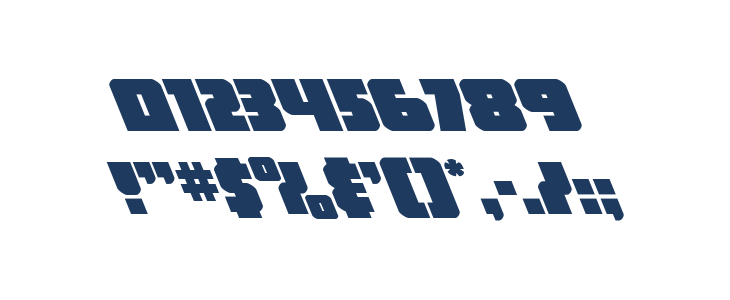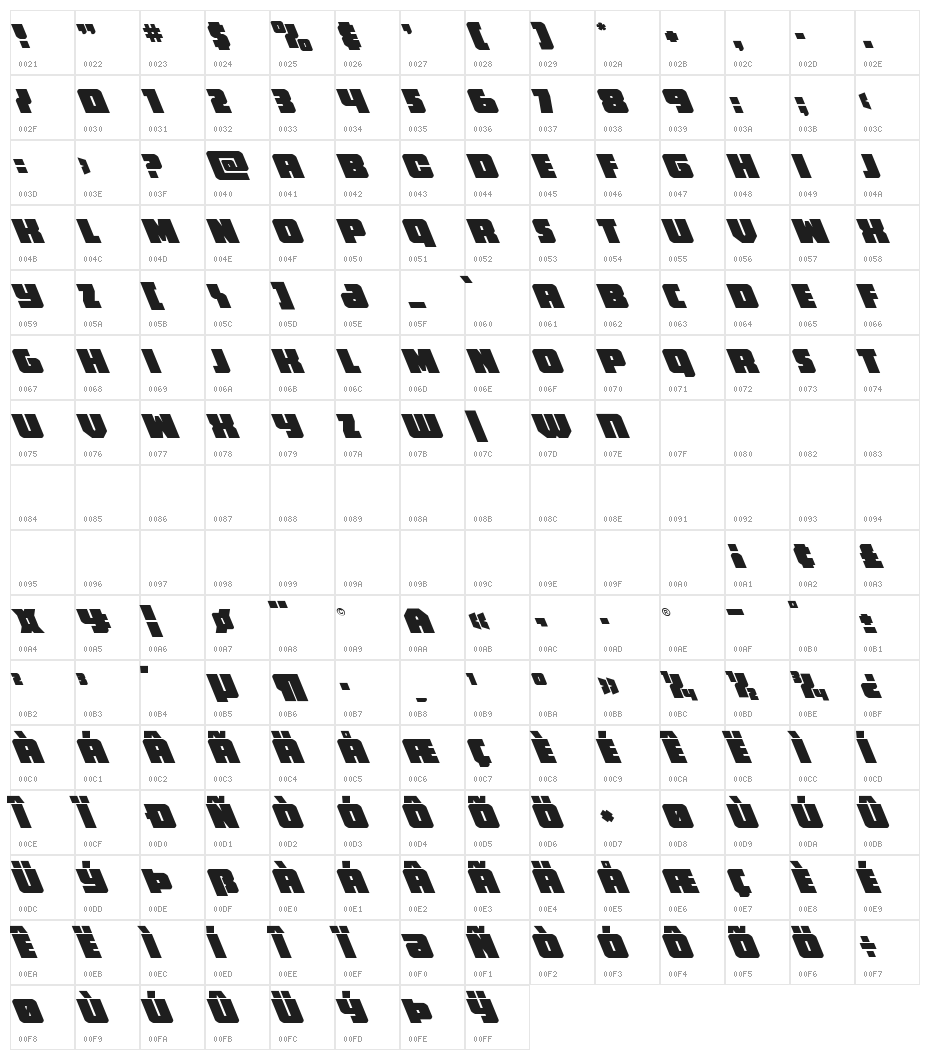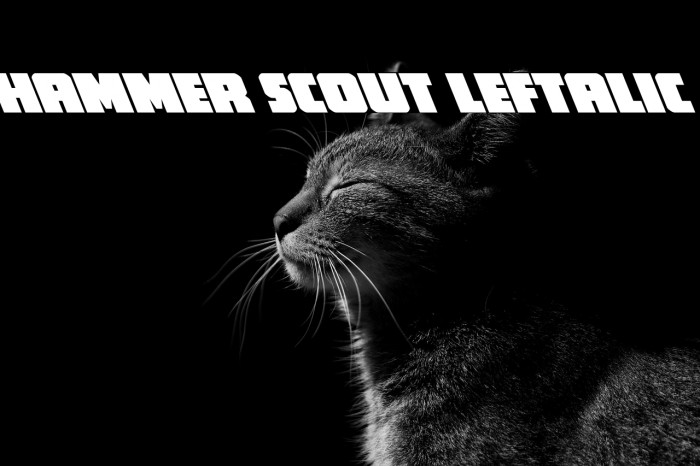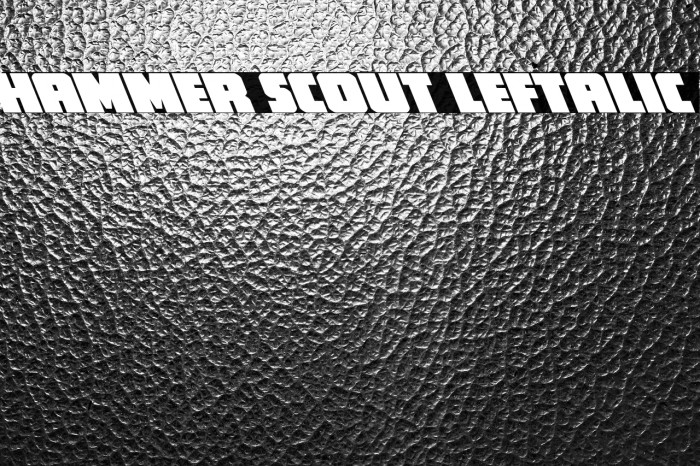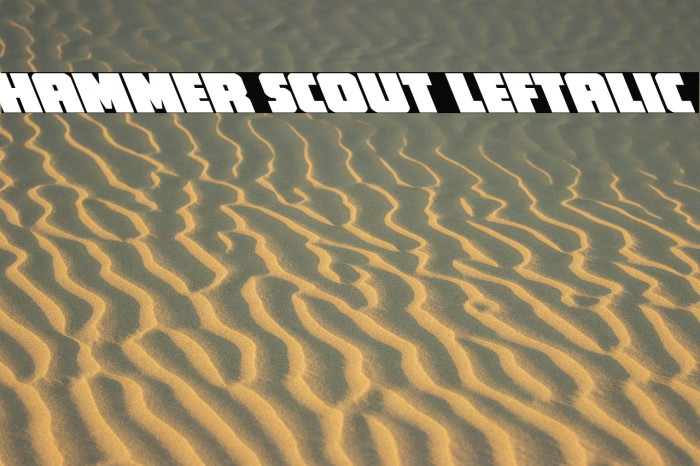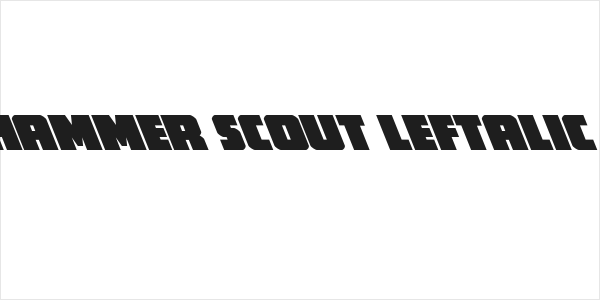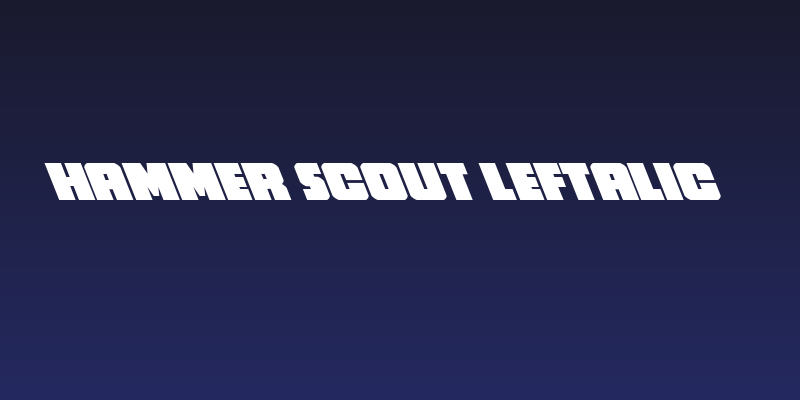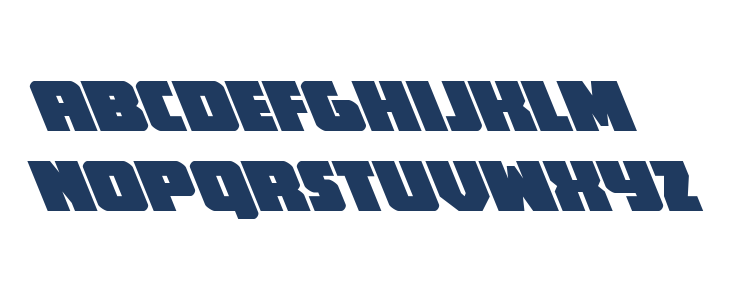
Hammer Scout Leftalic Font
Hammer Scout Leftalic Description
This font features a bold, dynamic style with a strong slant to the left, giving it a sense of motion and energy. The characters are blocky and robust, with thick strokes that convey a sense of strength and impact. The angular design and sharp edges contribute to its modern and aggressive appearance. The uppercase and lowercase letters maintain a consistent weight, while the numbers and special characters are designed to match the overall bold aesthetic. This font is ideal for projects that require a powerful and attention-grabbing typeface.
| Proposed Projects | Perfect for sports branding, action movie posters, gaming titles, and dynamic advertising campaigns. |